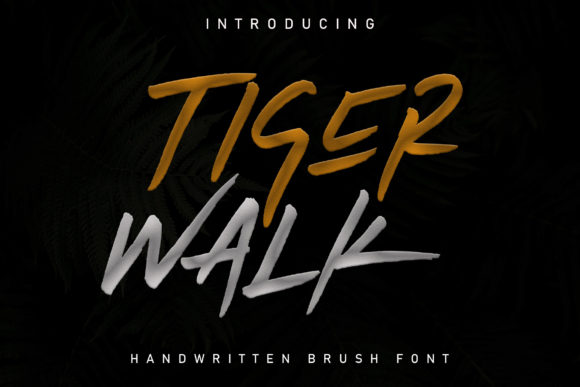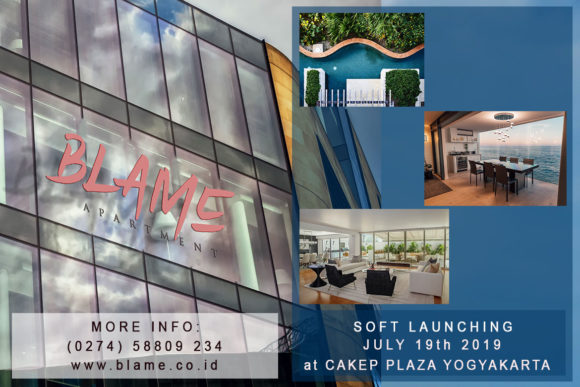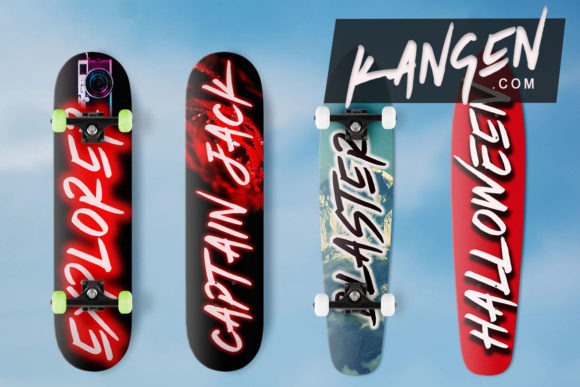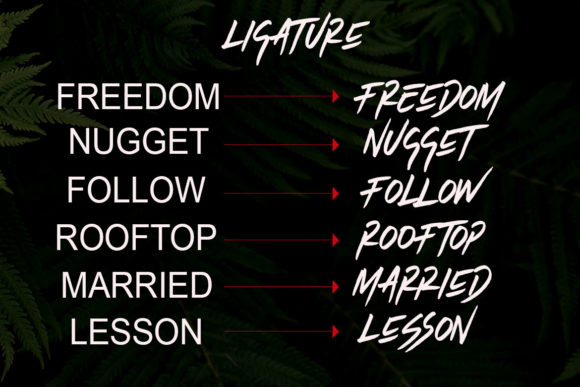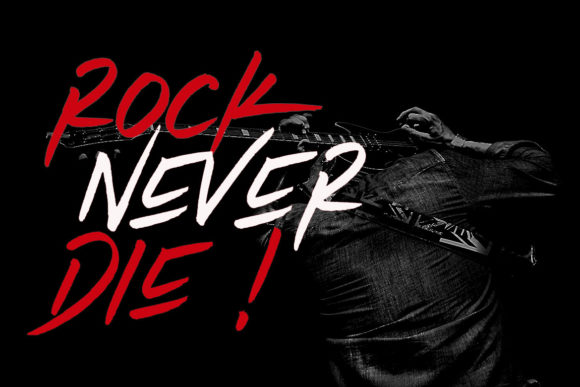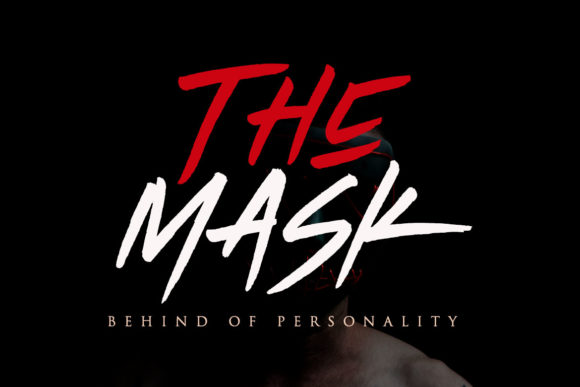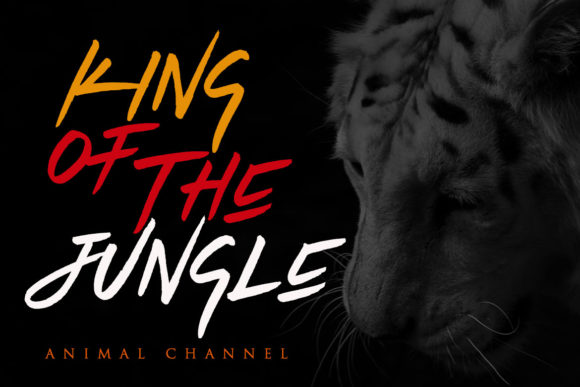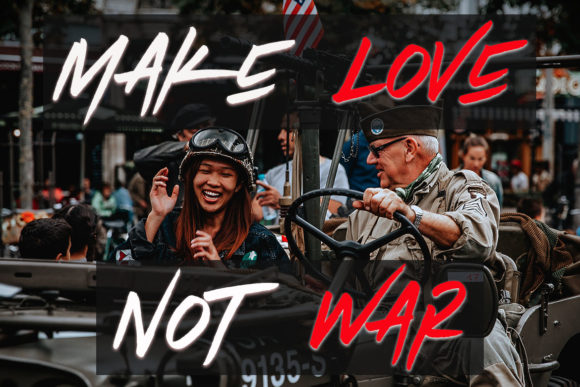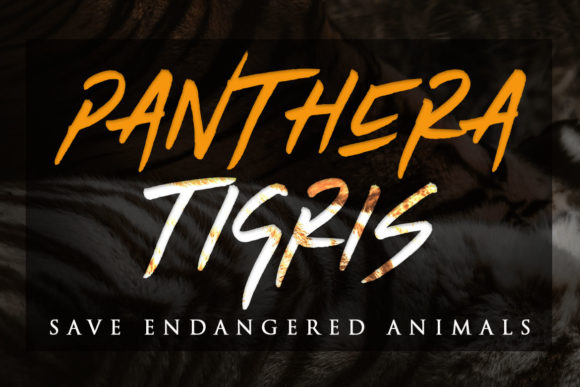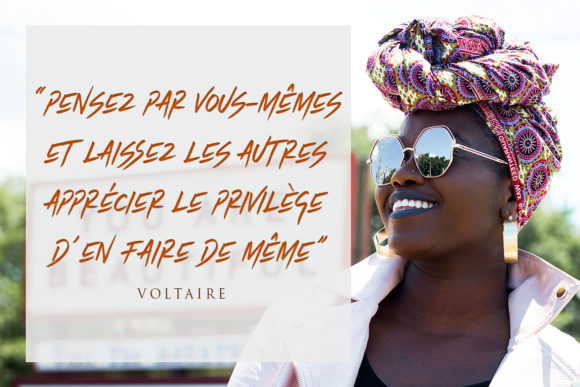
Tiger Walk Font
About Tiger Walk Font
Tiger Walk is a bold handwritten font with sharp edges and an urban feel. It will add a bold and contemporary twist to any design project!